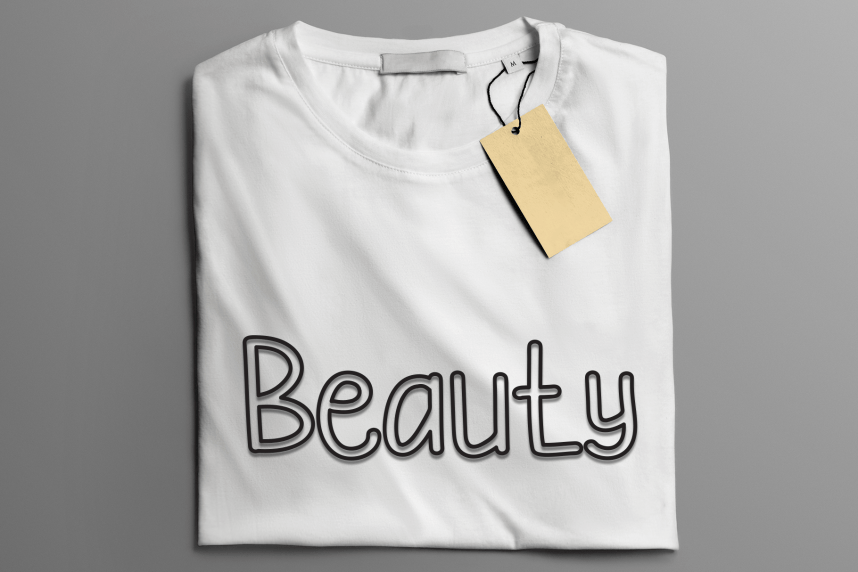
Mango Dream – Creative Style Font
Mango Dream – Creative Style Font is a sweet and friendly handwritten display font. Cute and fun, this font is ideal for writing wedding invitations, cards, or any other design that might need a playful touch!